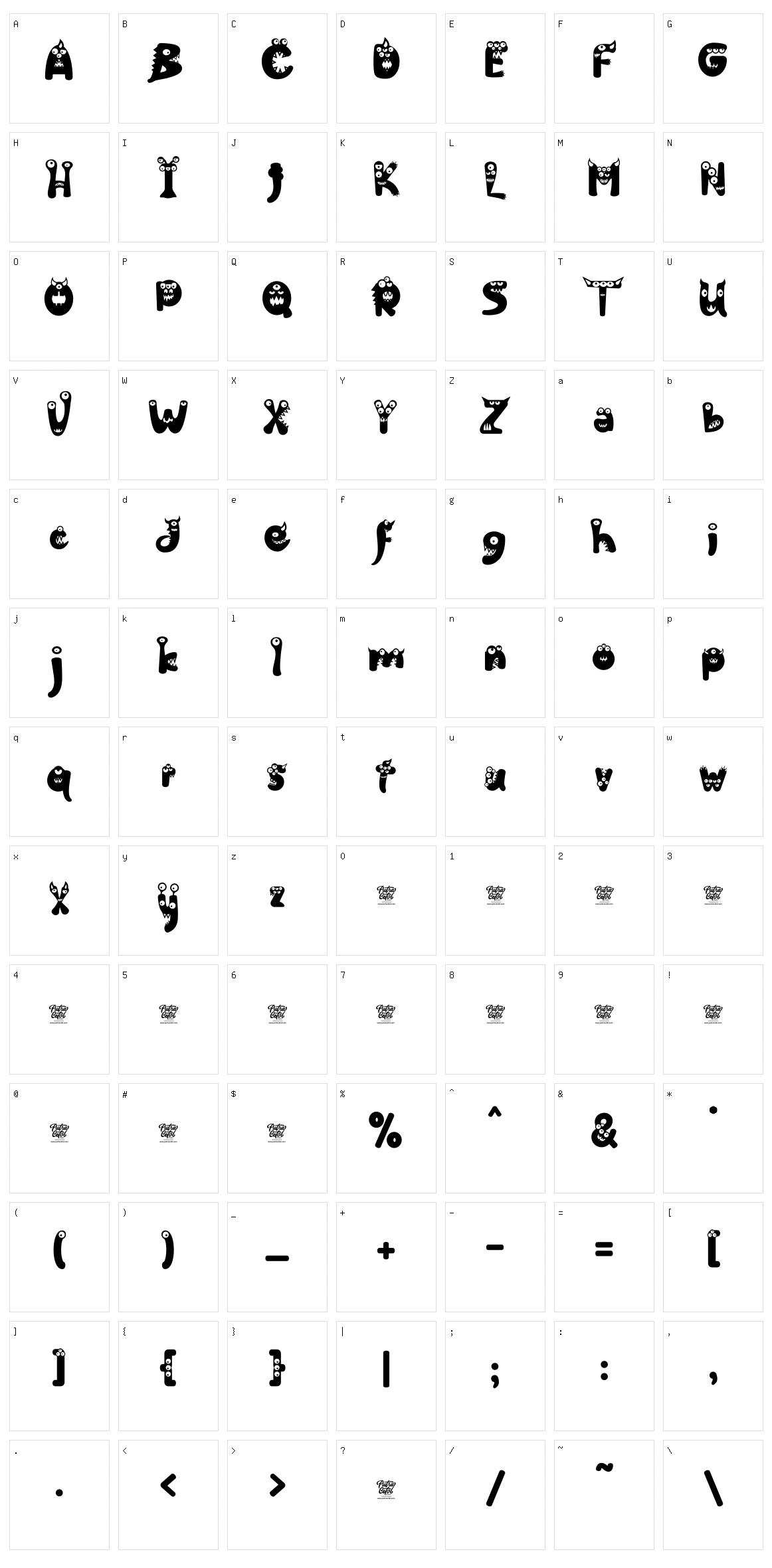
The free font Friendly Monster is carefully designed by PutraCetol Studio, showcasing a thoughtful balance of creativity and usability and falls under the Halloween font style. When you download the ZIP file, it contains only 859.91 KB of font files, making it lightweight and quick to download. Please review the license details below to understand permitted usage and distribution rights. If license information is not available, we recommend using this font for personal projects only or contacting the author directly for commercial usage permissions.